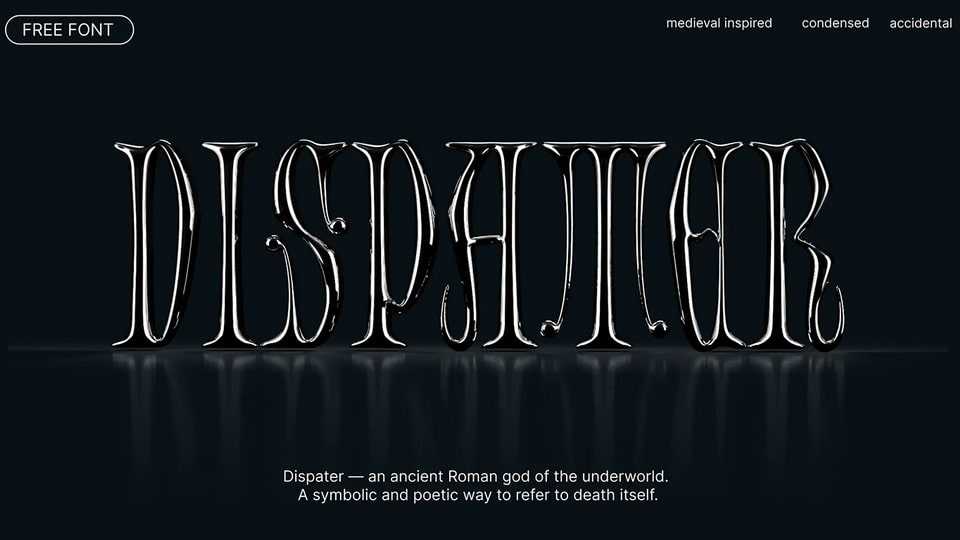
Download Dispater font, an accidental narrow unicase typeface inspired by dark medieval aesthetics and Lombardic capitals with Its long, tail-like terminals and distinctive elongated features in letters.